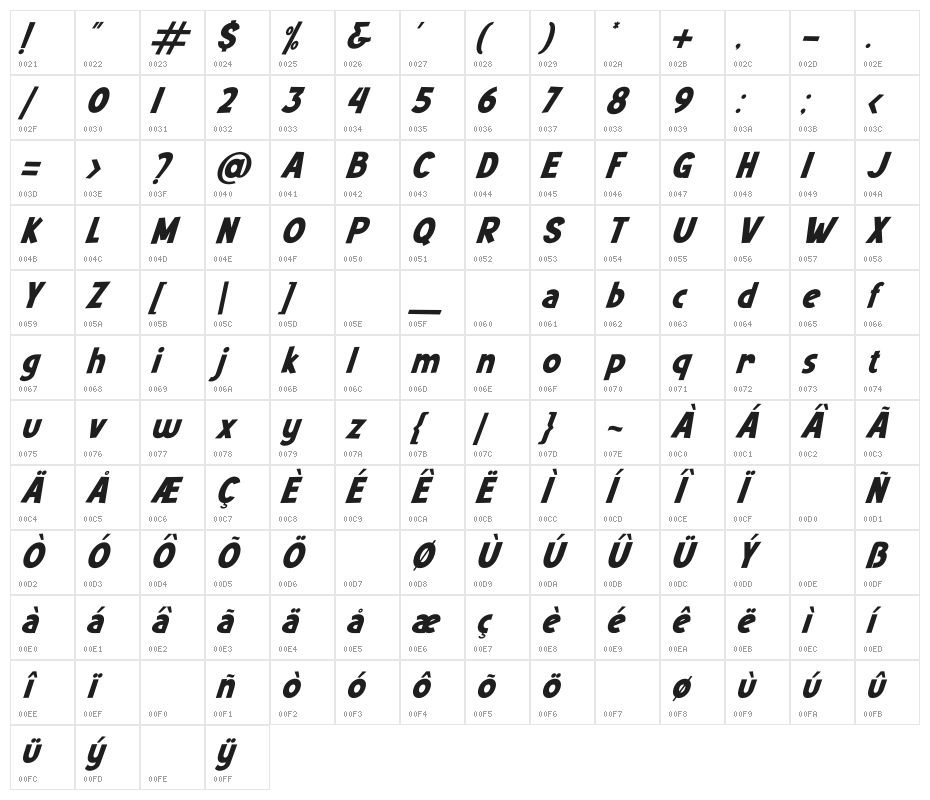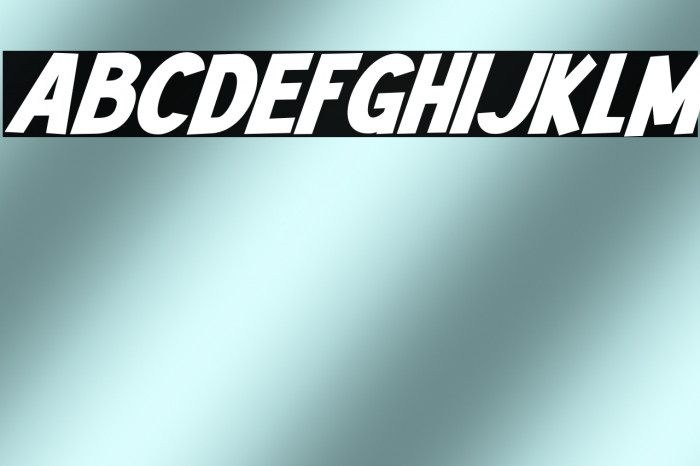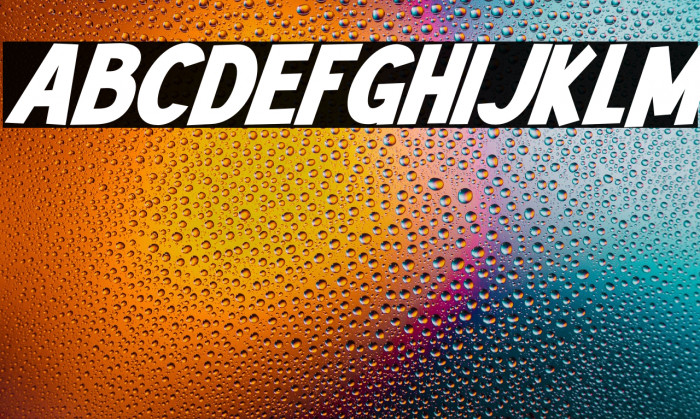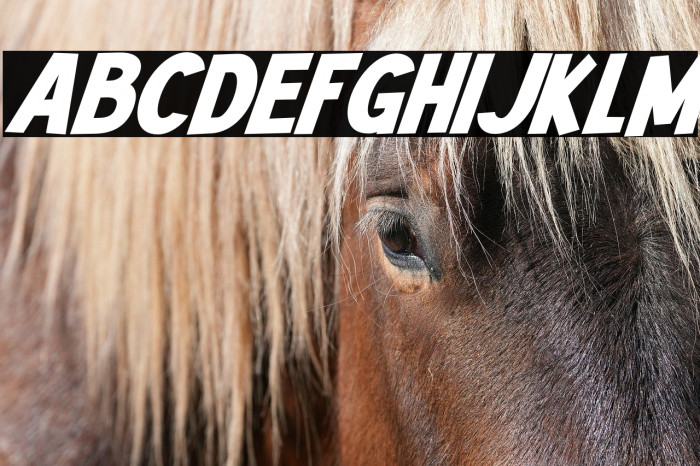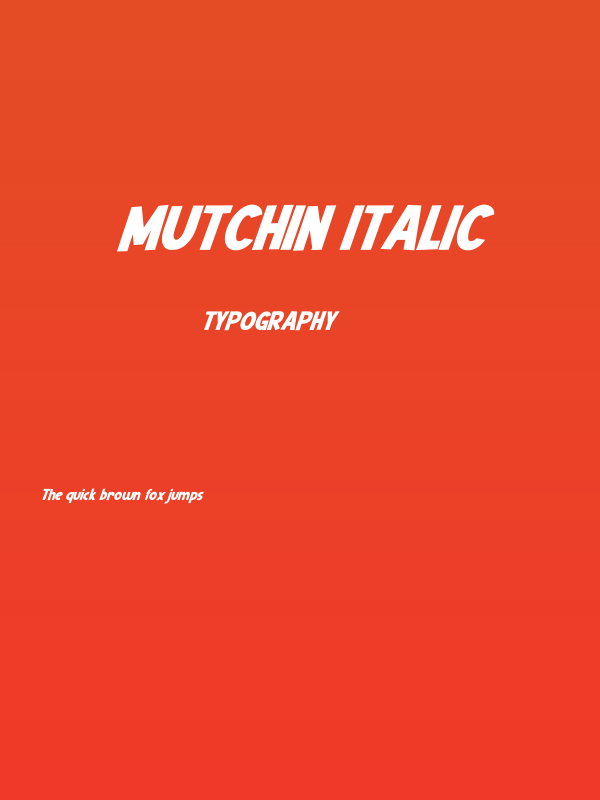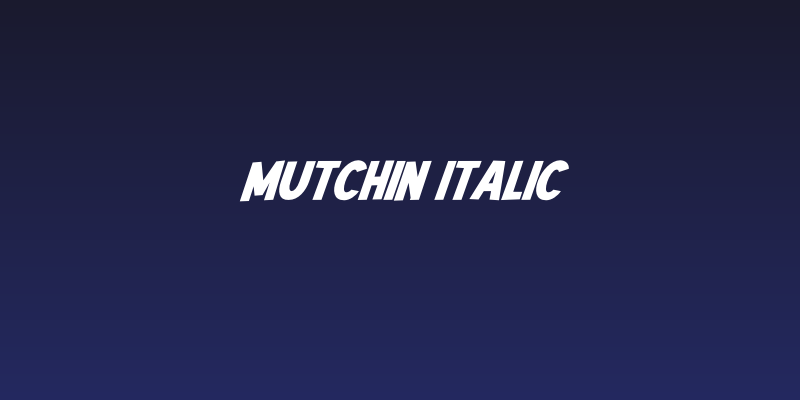
Mutchin Italic Font
Mutchin Italic Description
This font features a bold and dynamic italic style, characterized by its strong, slanted letterforms that convey a sense of movement and energy. The uppercase and lowercase letters maintain a consistent weight, providing a cohesive appearance across the alphabet. The numbers and special characters are designed with the same boldness, ensuring readability and impact. The strokes are thick, with a medium contrast that adds to the font's robust presence. The overall design is modern and assertive, making it suitable for projects that require a bold statement.
| Proposed Projects | Ideal for branding, advertising, headlines, and posters where a bold and energetic style is desired. |